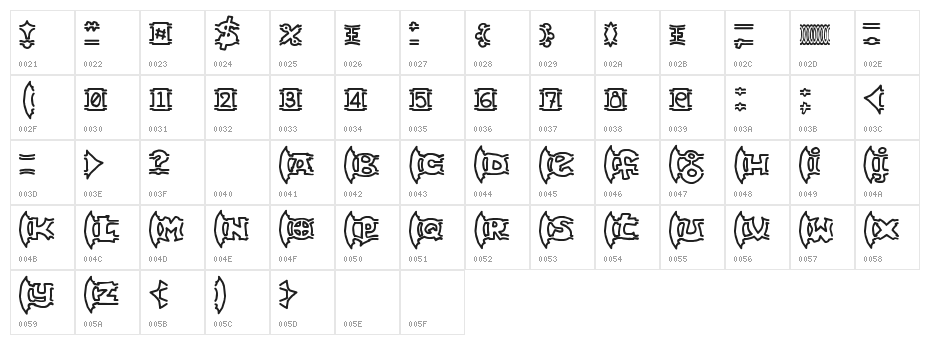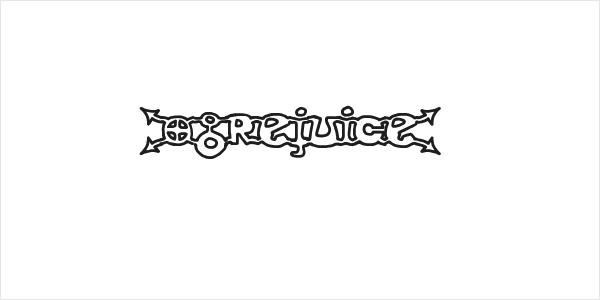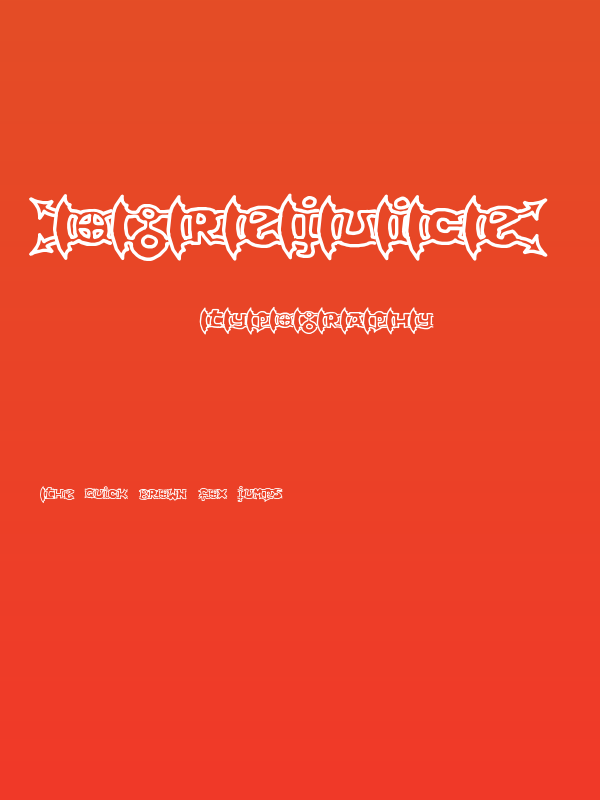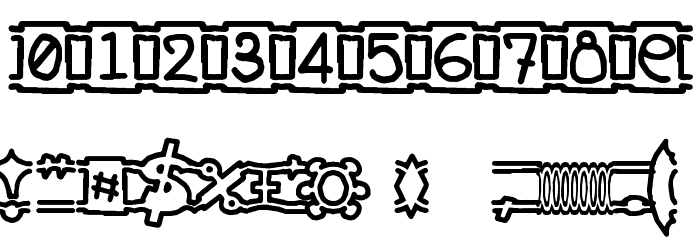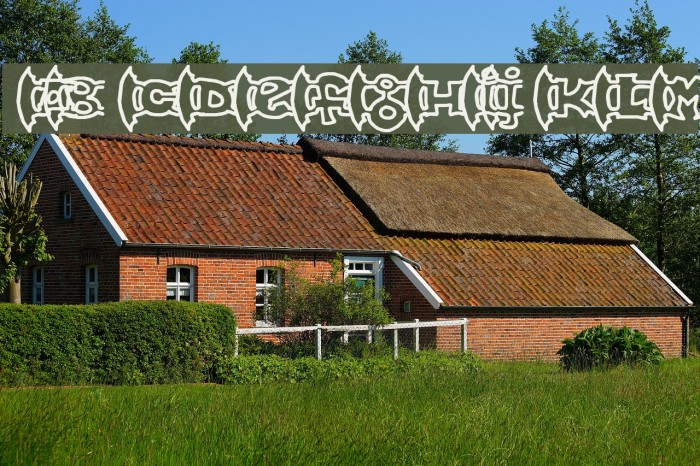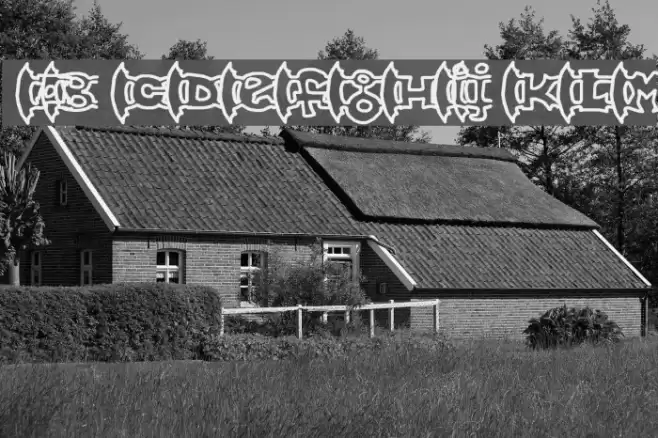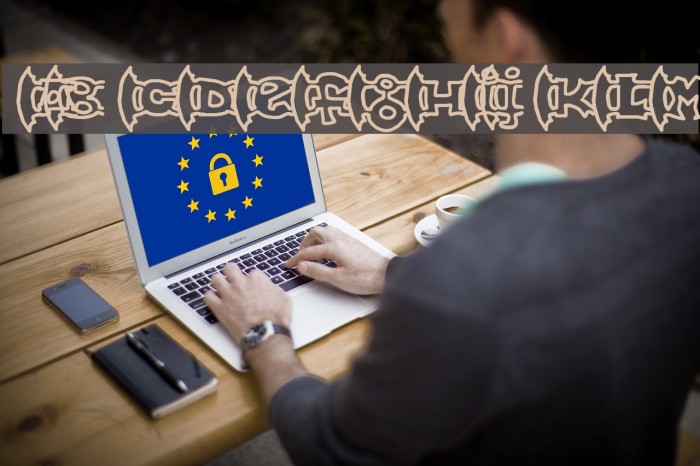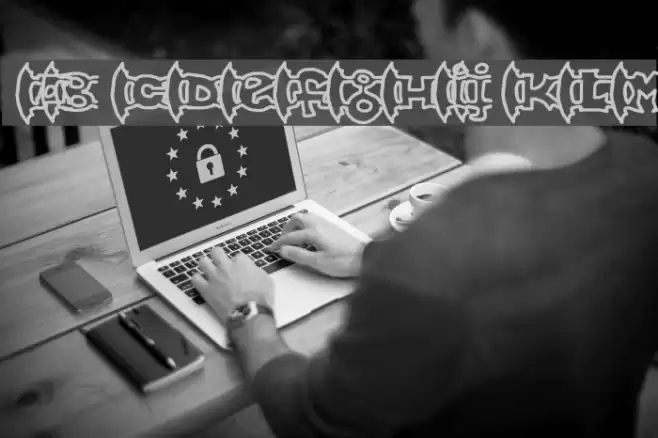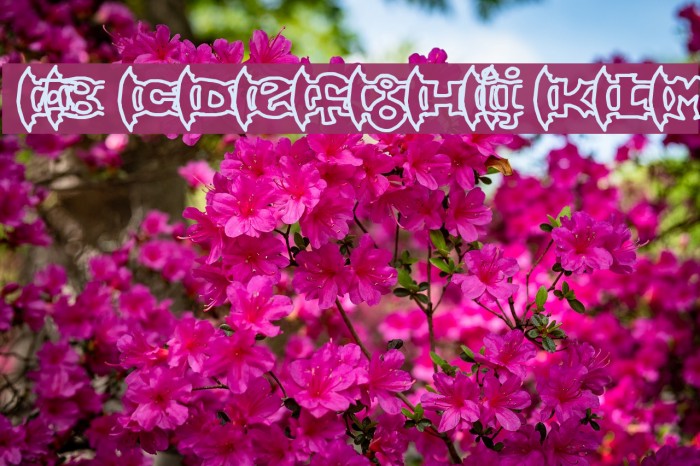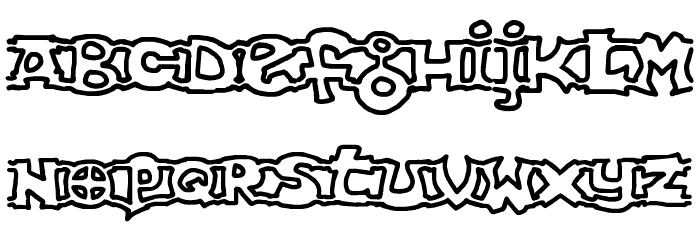
{ogrejuice} Font
{ogrejuice} Description
This font features a highly decorative and intricate design, characterized by bold, angular shapes and a gothic-inspired aesthetic. The uppercase and lowercase letters are uniquely stylized, with sharp edges and elaborate details that give each character a distinct personality. The numbers and special characters maintain this ornate style, making the font suitable for eye-catching designs. The overall appearance is reminiscent of medieval or fantasy themes, with a modern twist that adds to its visual appeal.
| Proposed Projects | Ideal for fantasy-themed posters, video game titles, book covers, and any project requiring a dramatic and eye-catching typeface. |